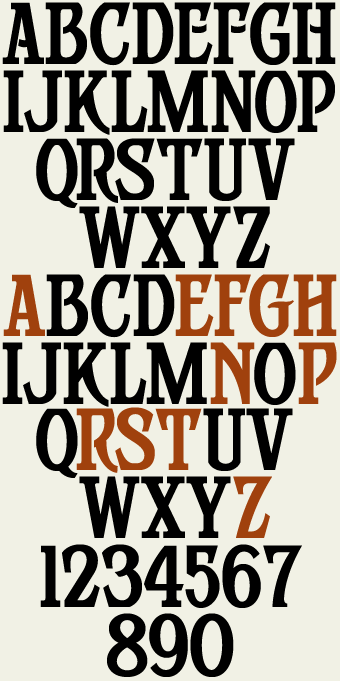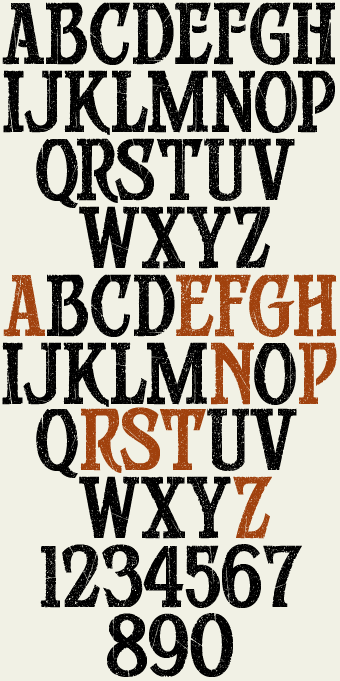
| Betterbiltby John Davis |
Unique 1920's era style. You receive all 3 versions shown below: Regular, Spurs and Distressed. Distressed version has been carefully designed to ensure no overlapping points or flaws.
Betterbilt Regular
Betterbilt Spurs
Betterbilt Distressed
Detail of Distressed version